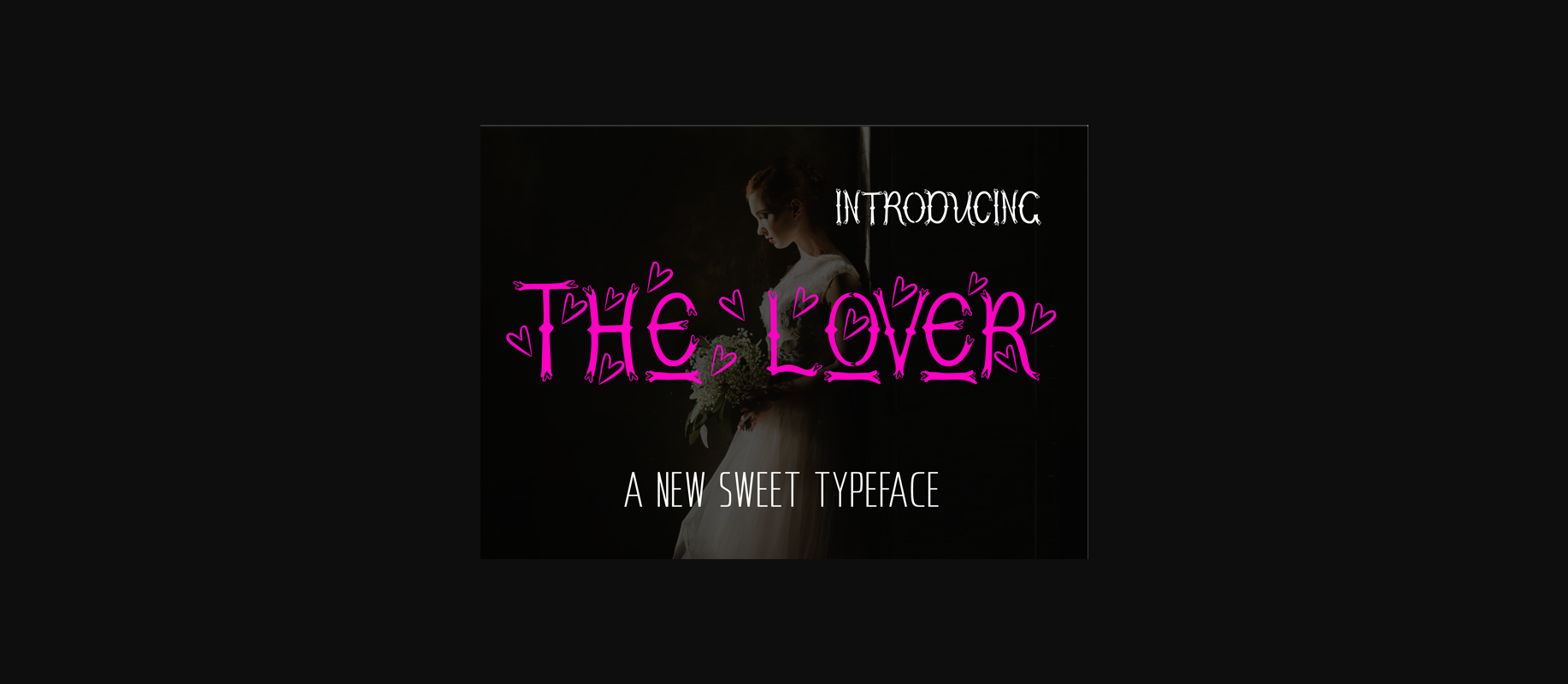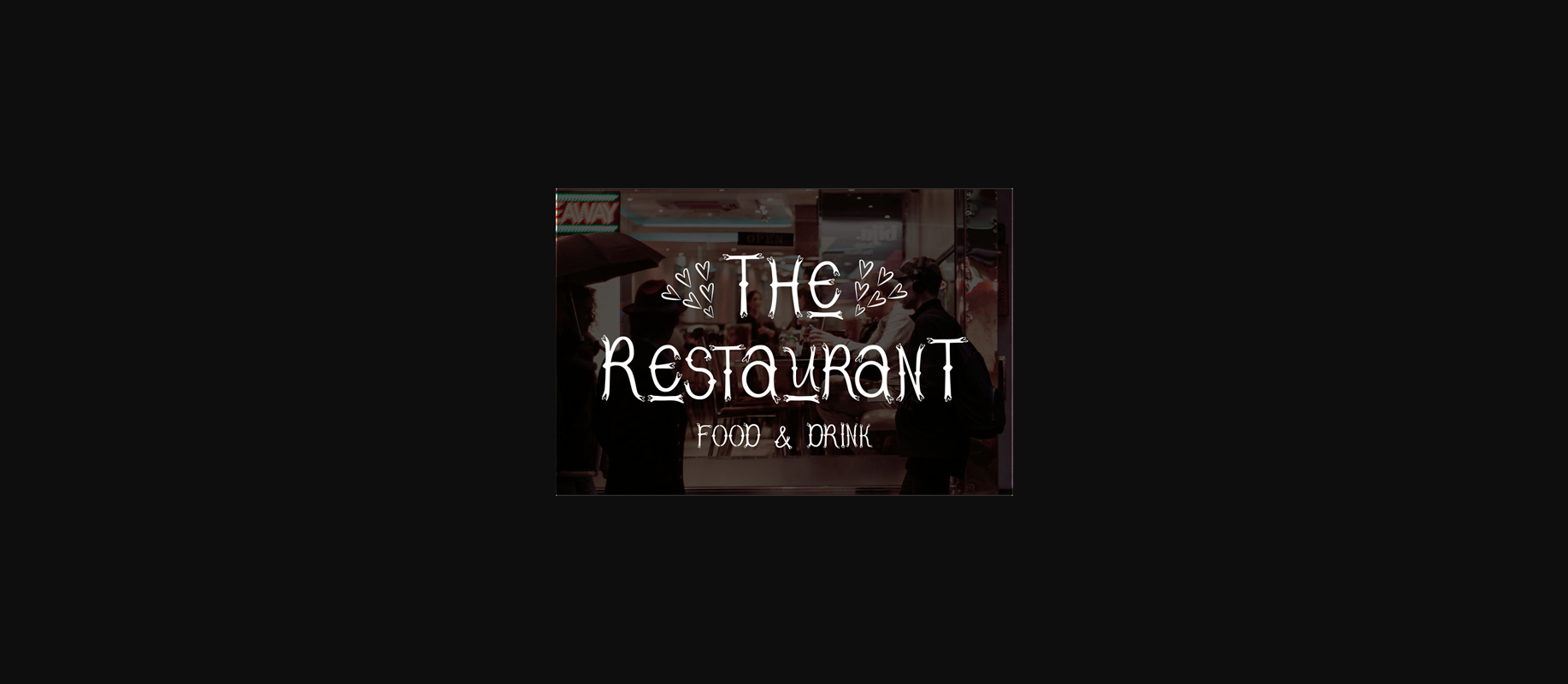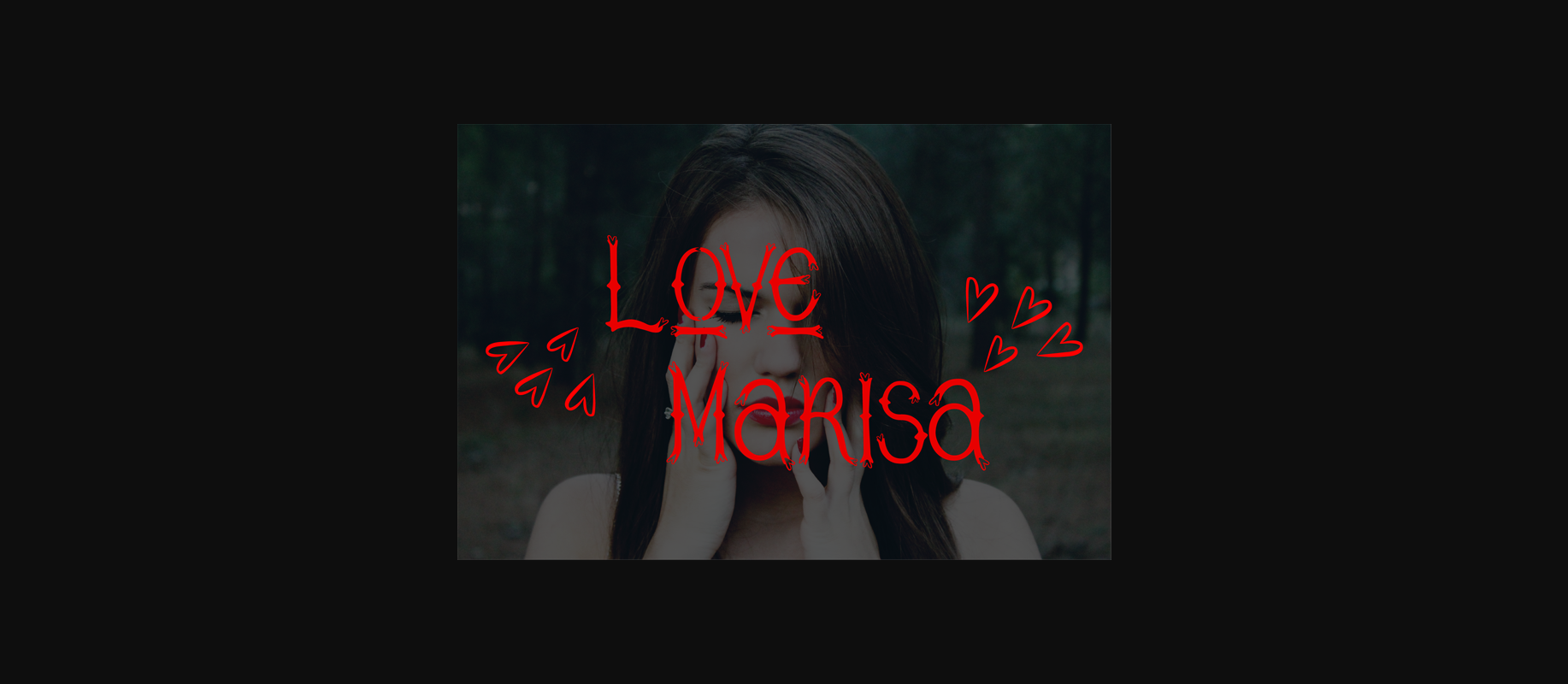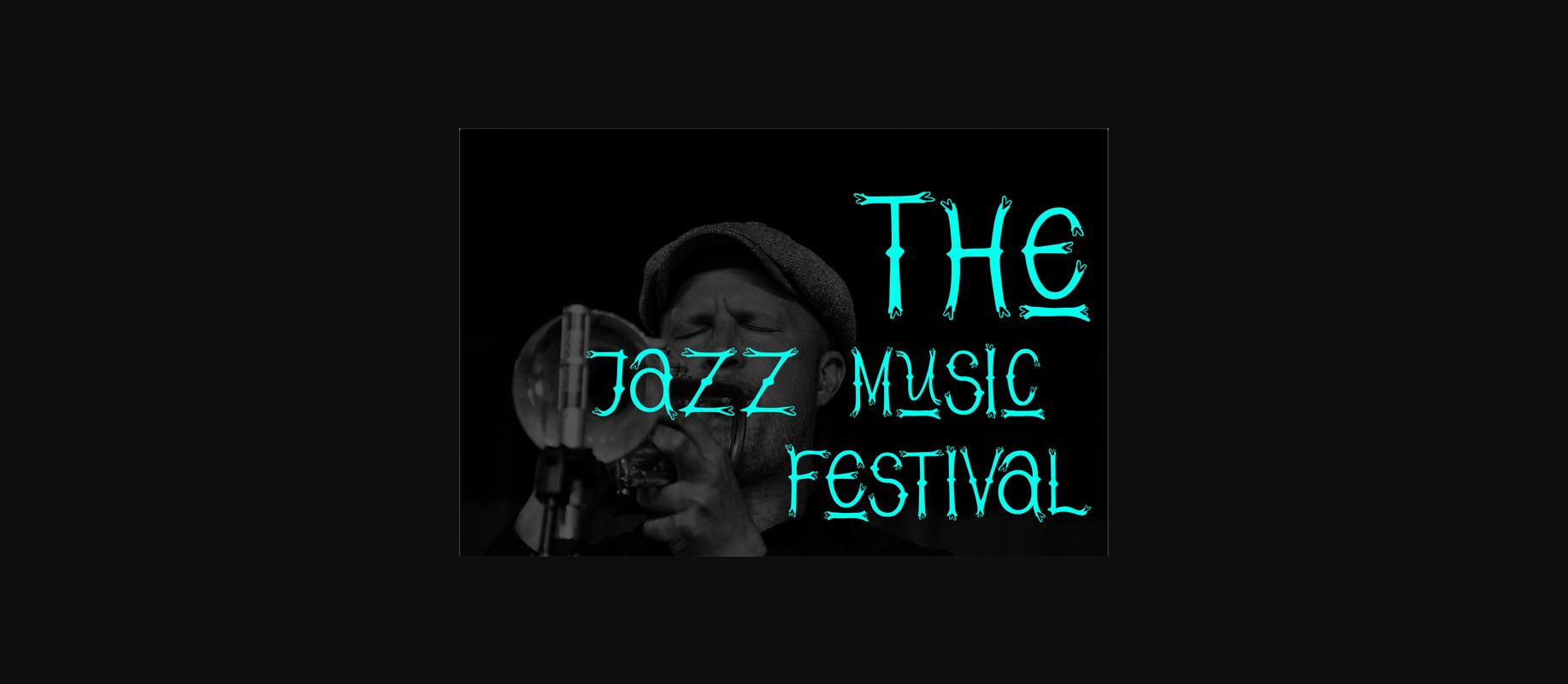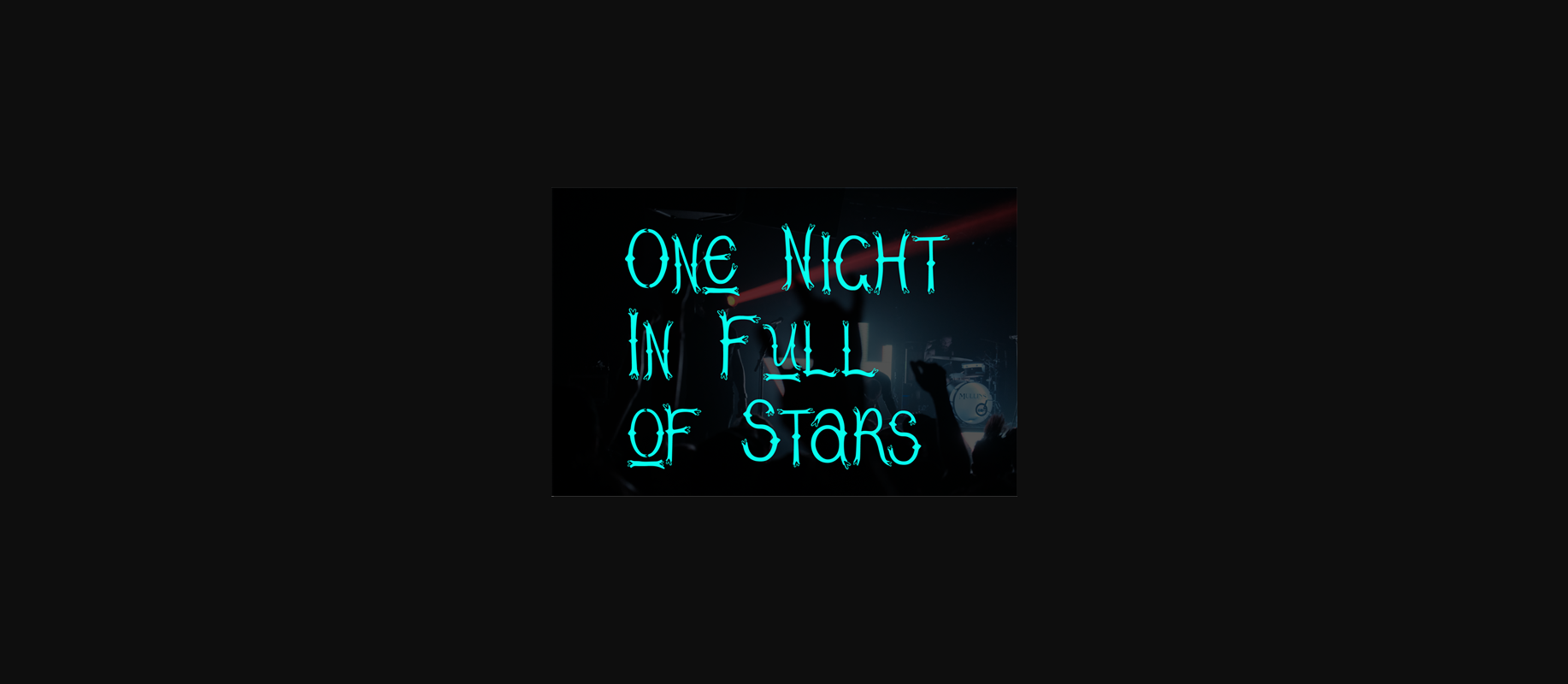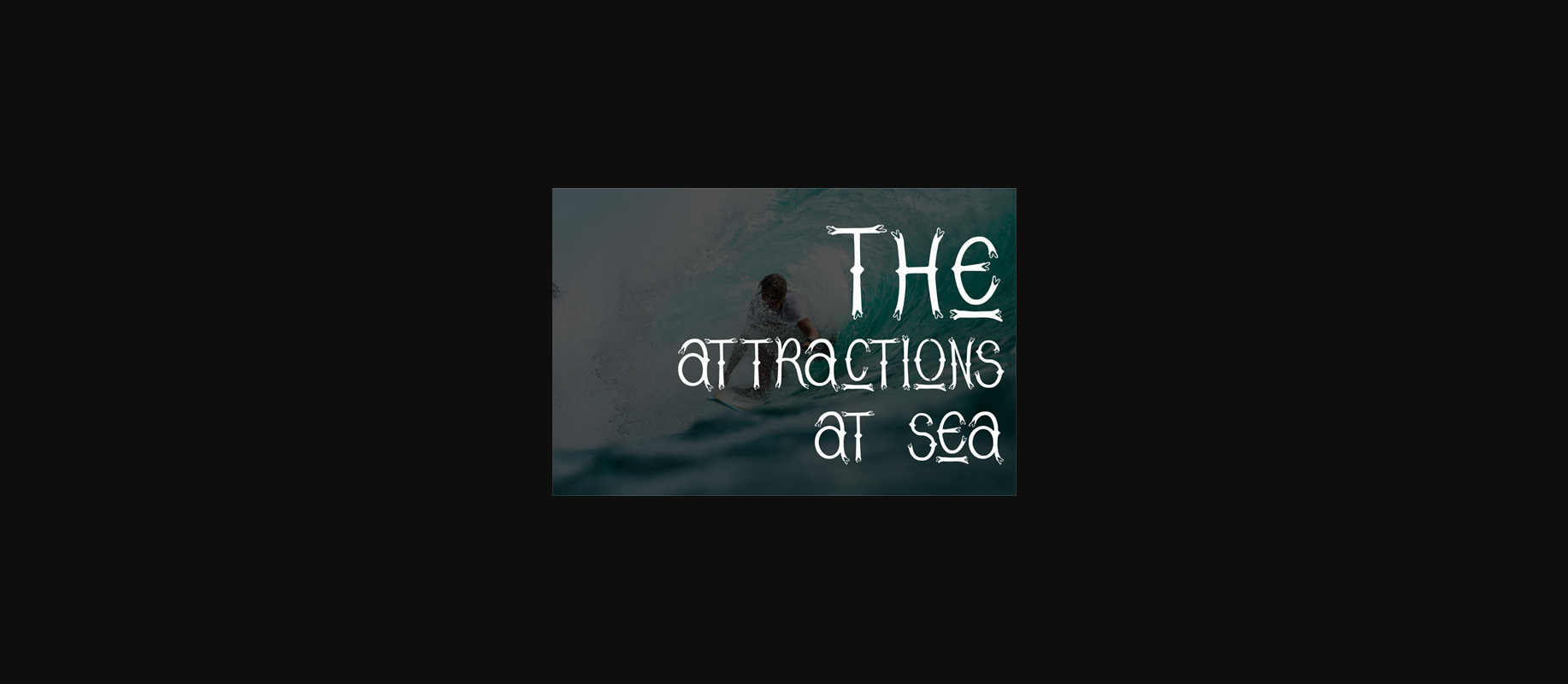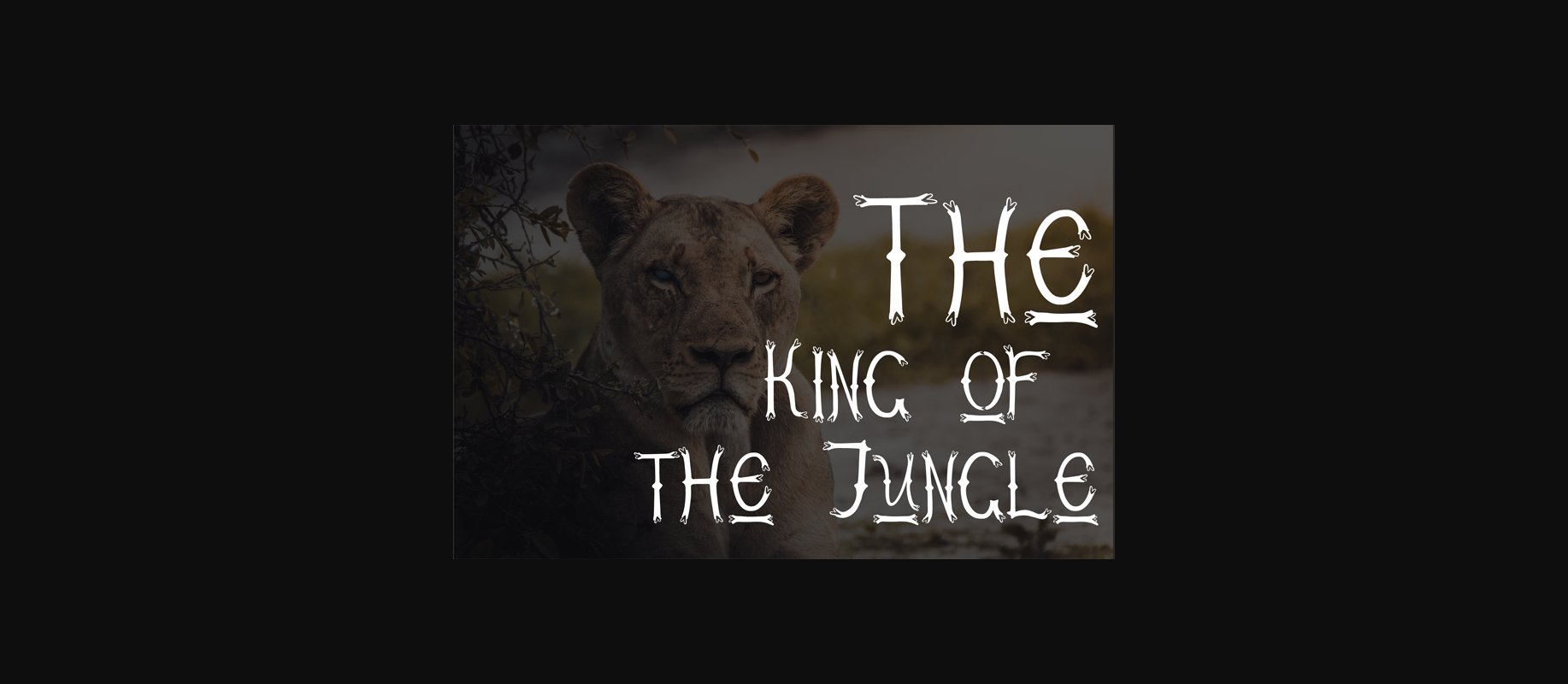
HomeDecorative FontsThe Lover Font Decorative Fonts The Lover Font FacebookXPinterestWhatsApp 1 of 7 About The Lover Font The Lover is a decorative font packed with love. DOWNLOAD NOW People also explored Phenom Extra Light Font Doctor Font Lachicha Font Scary Night Font Hope Font Ezkialova Font Jasper Font Milcandy Font Wonderful Flower Font 331 0 TagsThe Lover Font Previous articleMia Bella FontNext articlePrehistoric Caveman Font LEAVE A REPLY Cancel reply Comment: Please enter your comment! Name:* Please enter your name here Email:* You have entered an incorrect email address! Please enter your email address here Website: Save my name, email, and website in this browser for the next time I comment. Personal Use Free Lumber Personal Use Free Read more about this font Valentine Chips Personal Use Free Read more about this font Consequences Personal Use Free Read more about this font Konexio Personal Use Free Read more about this font BLOG Best Fonts for T-Shirt Design – Top 2025 Picks In 2025, t-shirt design has become more than just fashion—it's a form of self-expression. Whether you're... Fonts That Capture the Spirit of New York City To increase your work productivity, choose the most readable fonts. Free Fonts Risk: Why Free Fonts Can Be Dangerous for Designers